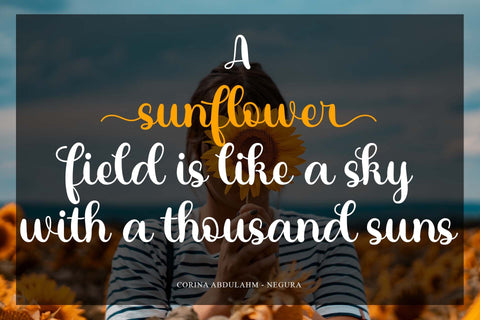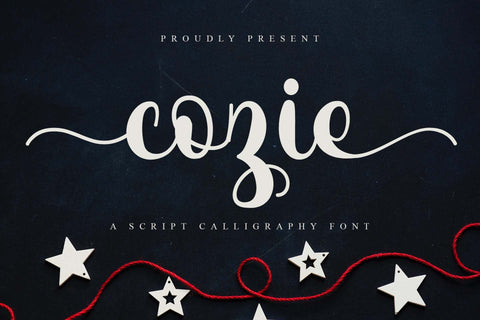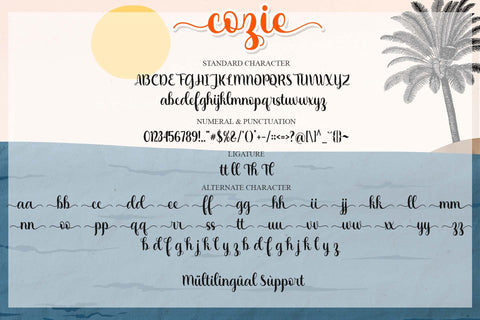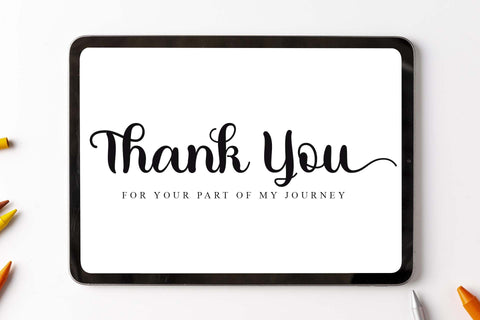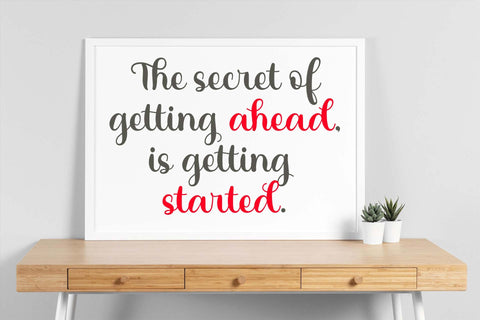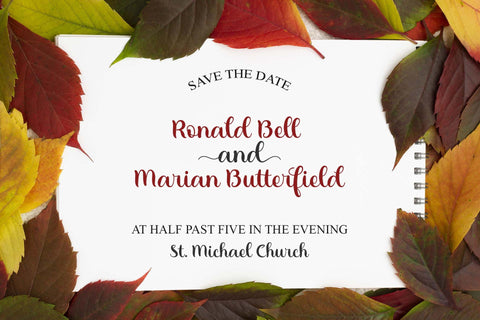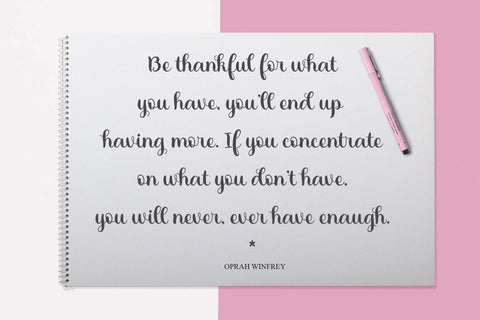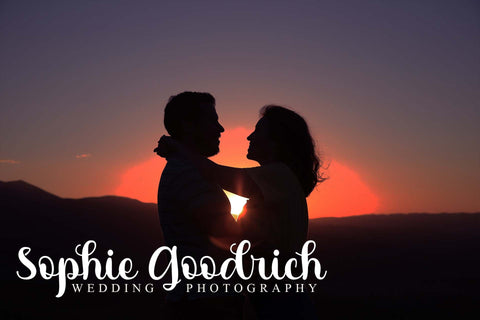
Cozie - A Script Calligraphy Font
Cozie is a unique and elegant handwritten font. It looks beautiful on a variety of designs requiring a personalized style. This font is PUA encoded which means you can access all of the glyphs and swashes with ease!